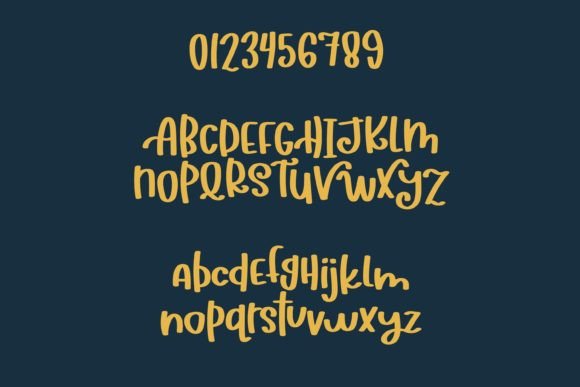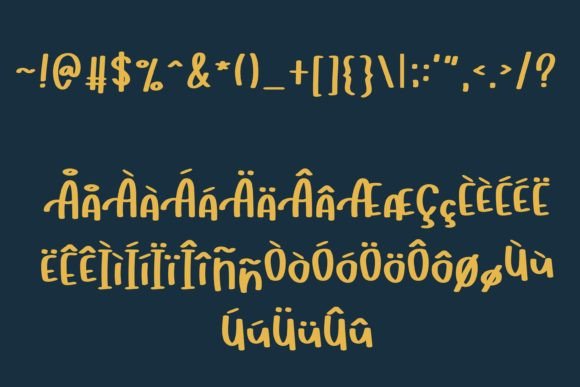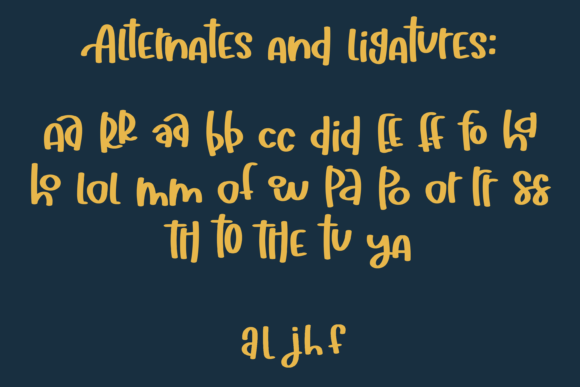
When Words Shout with Joy
Have you ever been brainstorming a project, and suddenly the perfect font pops into your mind? For designers, that ‘aha’ moment is what makes the creative process so exciting. It’s the spark that sets your project ablaze with energy and personality. For me, that spark came when I discovered the Hallelujah Font.
This playful and bold font brings a much-needed twist to any project, adding a handwritten touch that’s both quirky and readable. Its versatility makes it perfect for posters, invitations, and digital graphics. Whether you’re looking to create lively designs or shout with enthusiasm, the Hallelujah Font is the perfect choice. With its expressive style and great readability, it’s no wonder designers are turning to this font to capture the energy of celebration and joy in every letter.
Hallelujah Font Key Features
- Font Family: Hallelujah Font is a unique, custom-designed font family.
- Size: The font family comes in 6 different weights: Hairline, Light, Regular, Medium, Bold, and Black.
- Resolution: Designed to work at high resolutions, making it ideal for digital applications.
- Unique Characteristics: The font features a distinctive, handwritten style with elegant flourishes and subtle texture.
- Font Pairing: Hallelujah Font is designed to be paired with other script fonts for a sophisticated, elegant look.
Hallelujah Font Review
I recently had the chance to work with the Hallelujah Font, and I must say, it’s a unique and intriguing choice. ✨ One of the things that works well is its eclectic feel, which can add a touch of personality to any design project. The font’s irregular shapes and curves can create a sense of visual interest, making it perfect for titles and headings.
Another aspect that I appreciate is its versatility. ✨ Hallelujah Font can be used for both digital and print projects, and it works well in a variety of contexts, from modern websites to traditional publishing.
However, there are some limitations to consider. ⚠️ For one, the font can be quite challenging to read, especially in smaller sizes. This can make it difficult to use for body text or other areas where readability is crucial. Additionally, the font’s unique style can be overwhelming if used excessively, so it’s essential to use it sparingly and thoughtfully.
- Works well for titles and headings
- Perfect for modern and traditional design projects
- Can be used for both digital and print projects
Overall, I think the Hallelujah Font is a great choice for designers who want to add some personality and flair to their projects. Just be sure to use it thoughtfully and in moderation, and you’ll be sure to get the best results.
Use the Hallelujah font to add a touch of elegance and sophistication to your designs.
Combine the Hallelujah font with other decorative fonts for a unique and eye-catching look.
Wedding ceremony programs and menus
Church and ministry materials
Event and conference materials